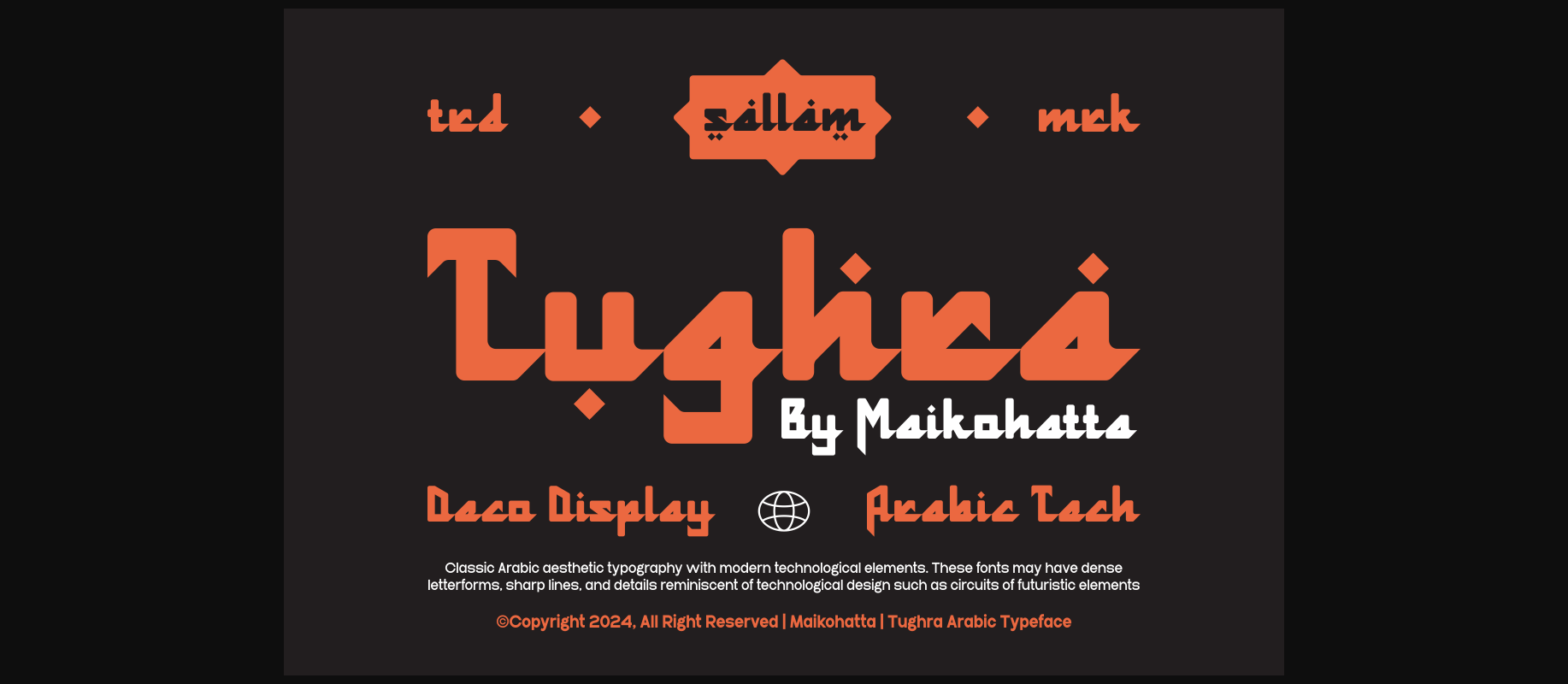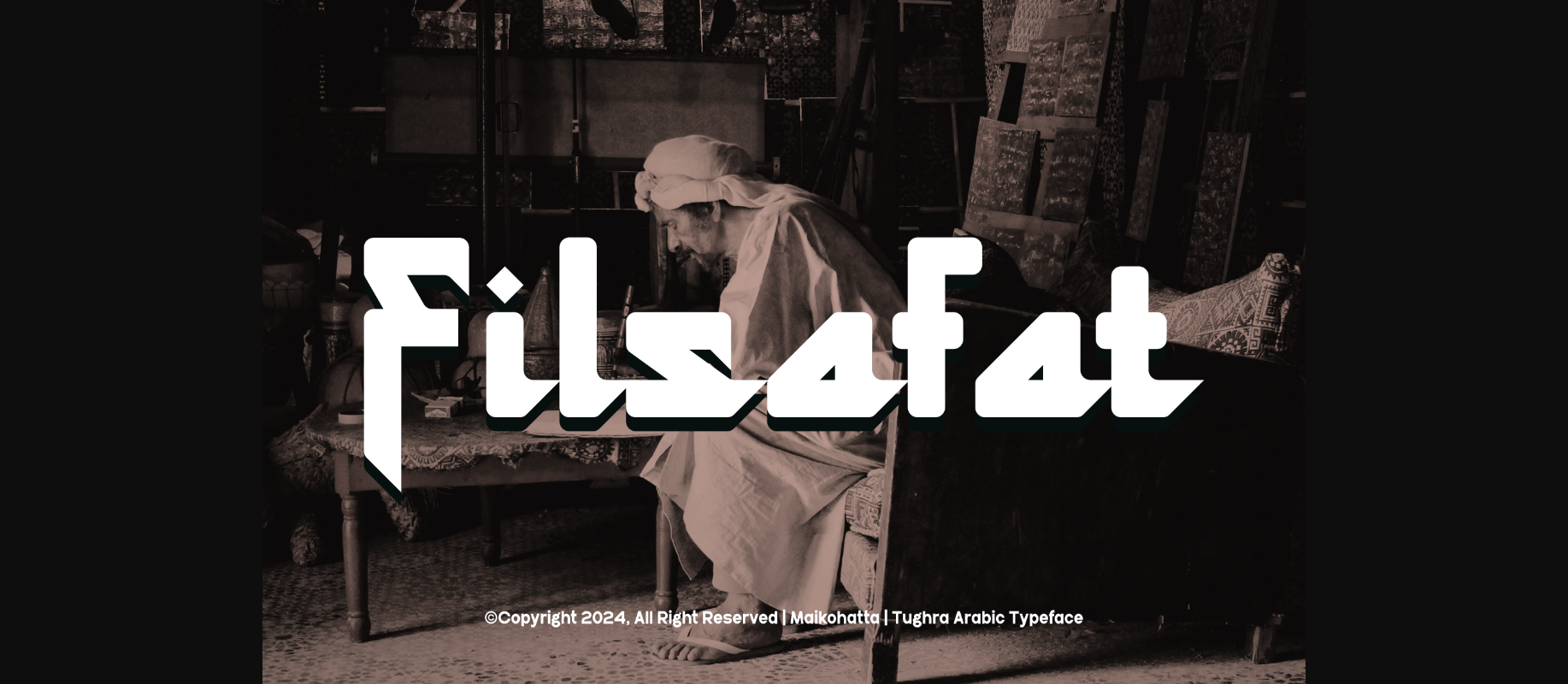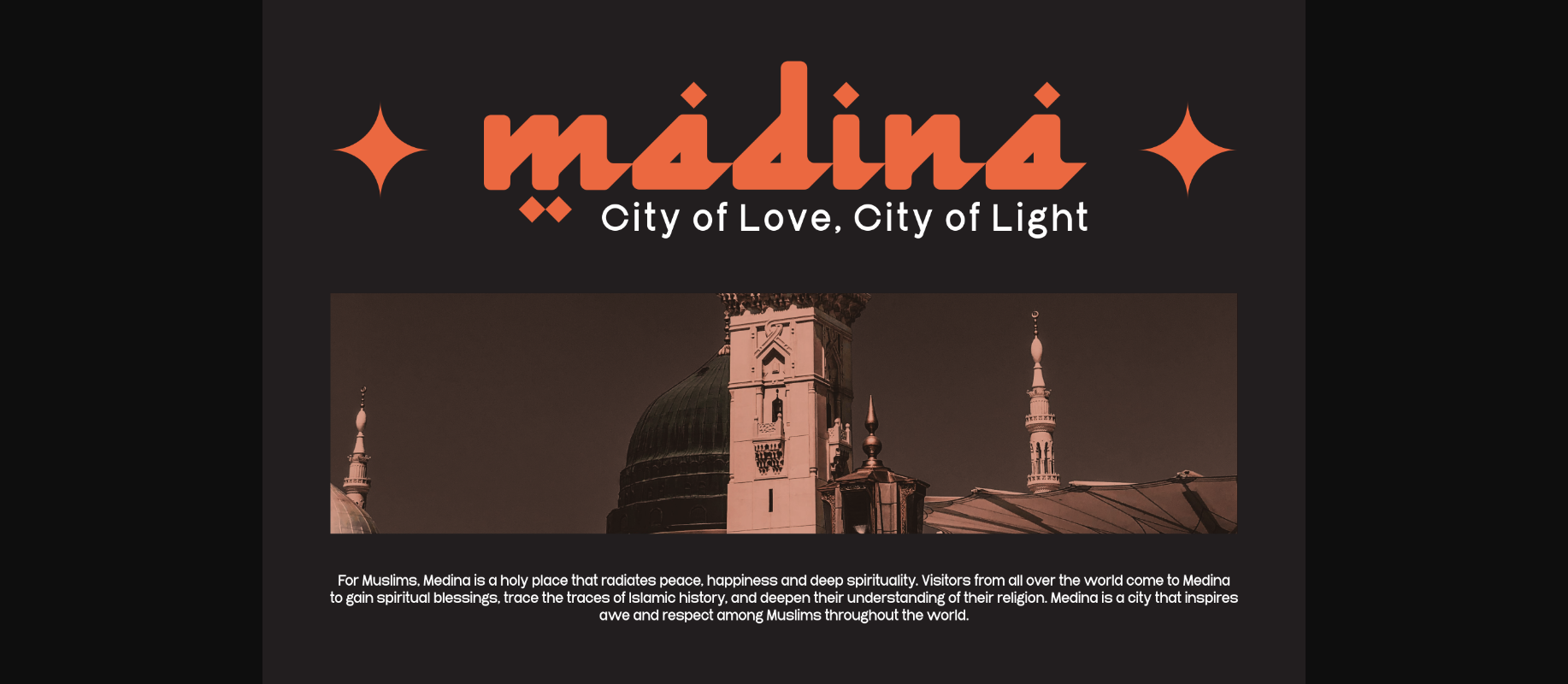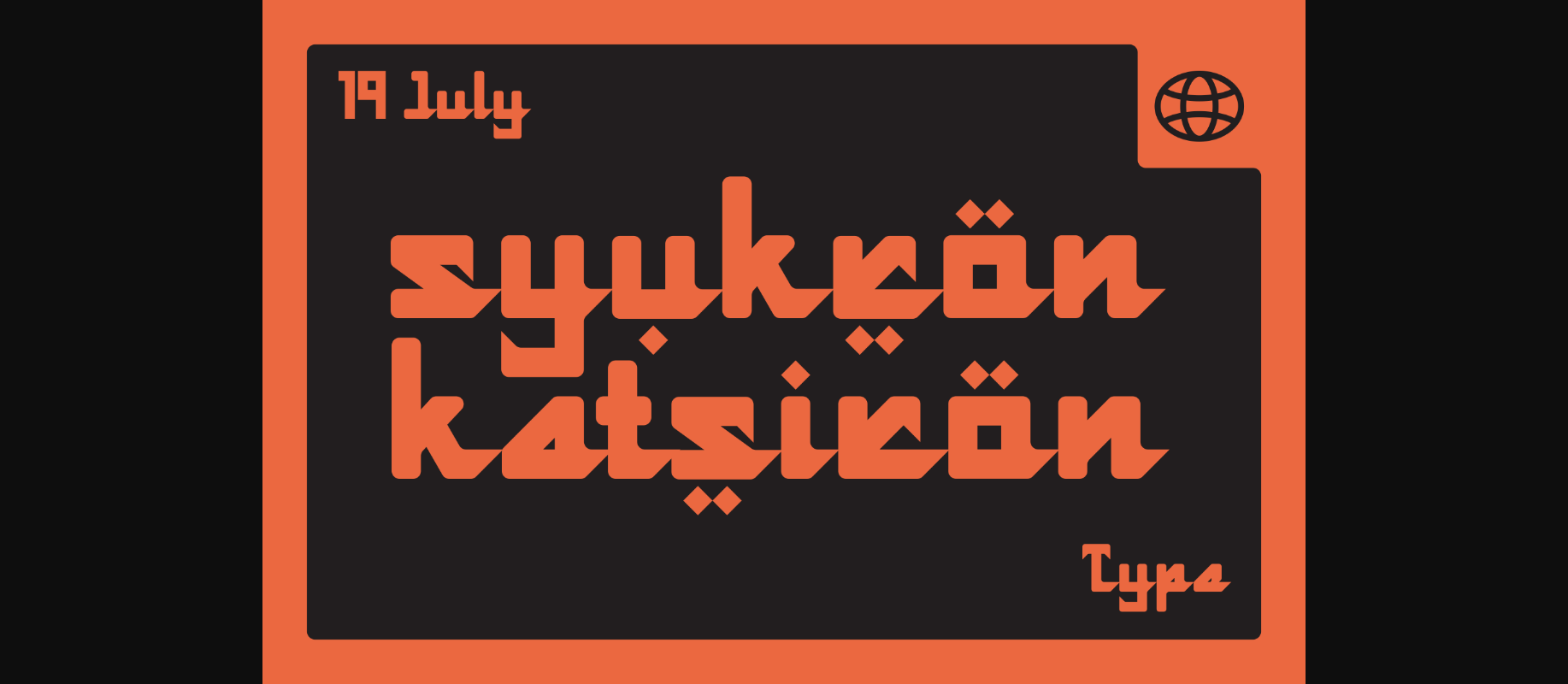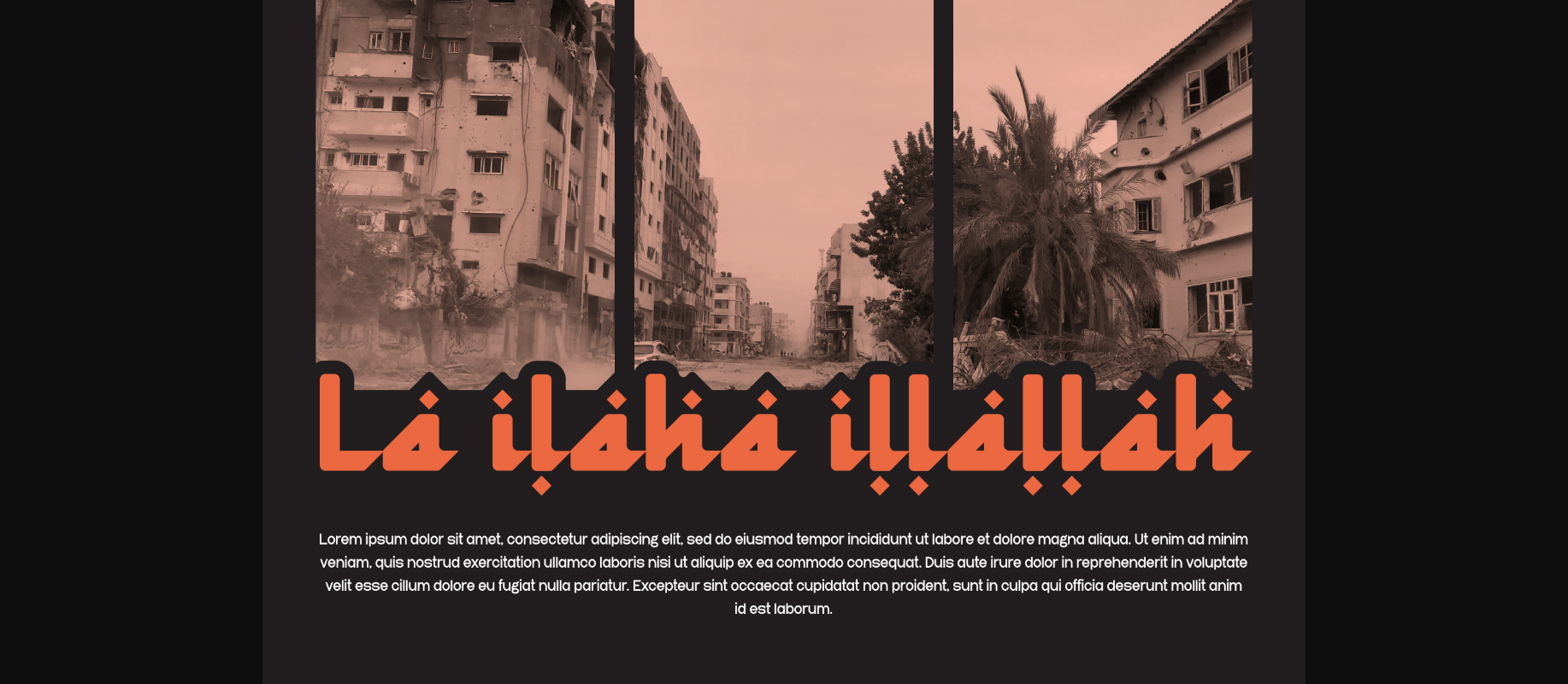
About Tughra Font
Tughra is a cool Arabic Techno display font. It’s stylish and perfect for making your designs stand out. Whether you’re creating posters, logos, or digital artwork, Tughra adds a modern touch with its unique Arabic flair.